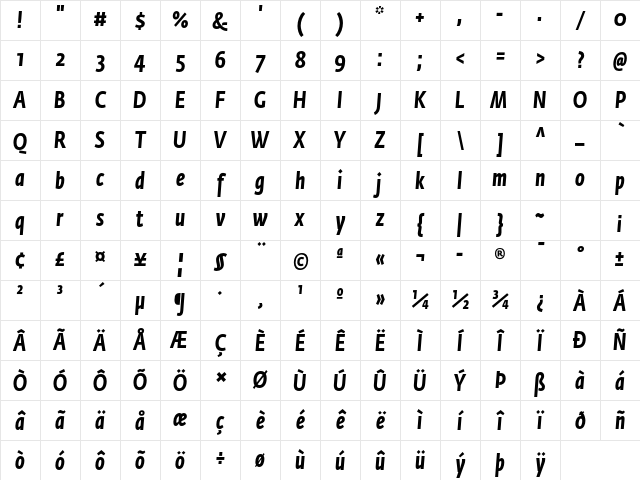
Fedra Sans Condensed Std Bold Italic
Foundry: Typotheque type foundry
Designer: Peter Bilak (www.typotheque.com)
Design Context for Fedra Sans Condensed Std
Fedra Sans Condensed Std is a composed and adaptable typeface that performs quietly and consistently across a wide range of design contexts. The slanted form adds forward momentum and visual energy. Its bold stroke weight gives it real presence on the page. Its narrow stance lets it pack a punch even in space-constrained designs.
Pro Tip: Use Fedra Sans Condensed Std for emphasis, pull quotes, and subheadings where its slanted energy can add rhythm to the layout.
Who designed the Fedra Sans Condensed Std Bold Italic font?